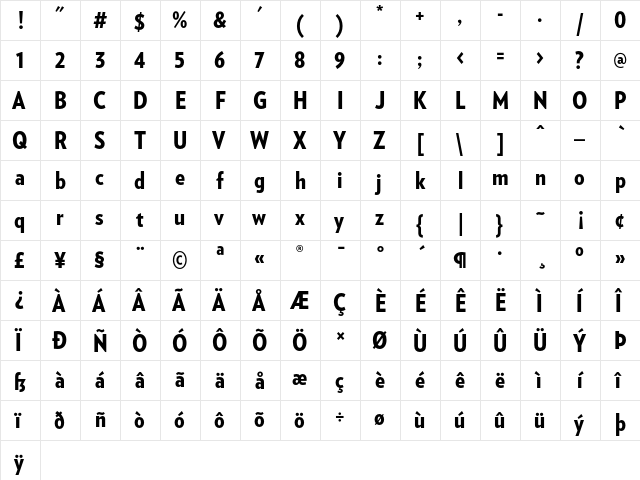
Verlag Condensed Black
Design Context for Verlag Condensed Typeface
Verlag Condensed offers clean, dependable letterforms without strong stylistic allegiance, making it a practical choice for designers who need flexibility. The condensed width makes it efficient for tight spaces without sacrificing legibility.
Pro Tip: Use Verlag Condensed in both headline and body roles to test its range before committing to a single application.